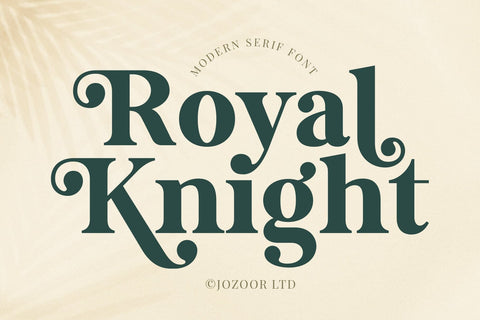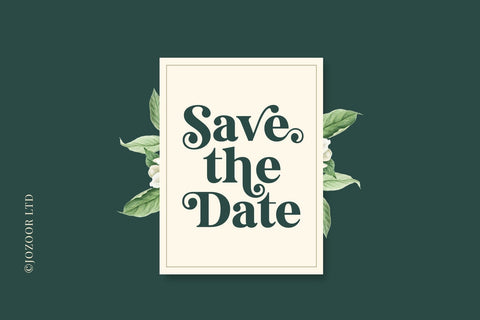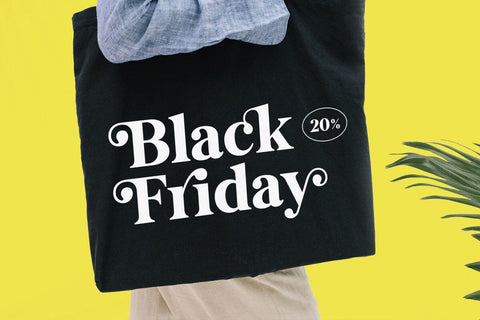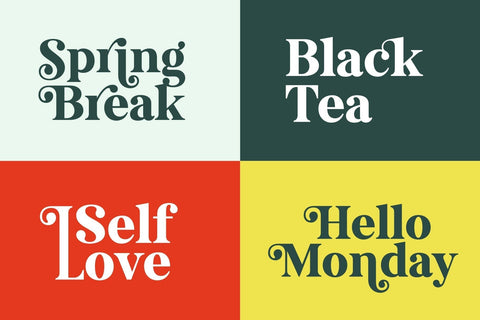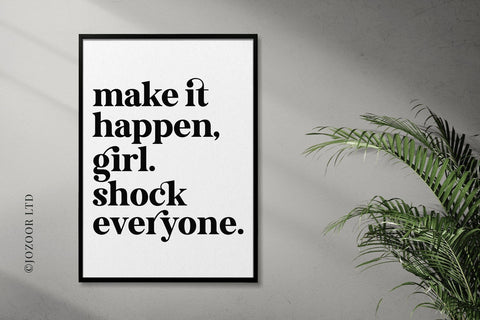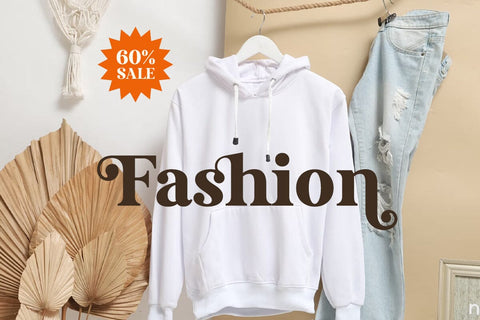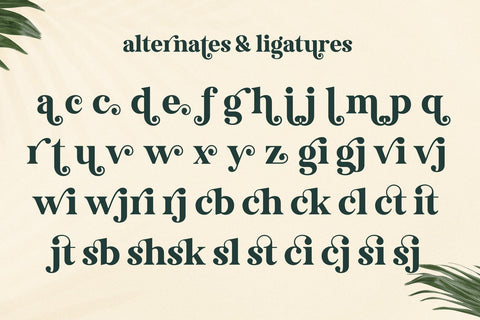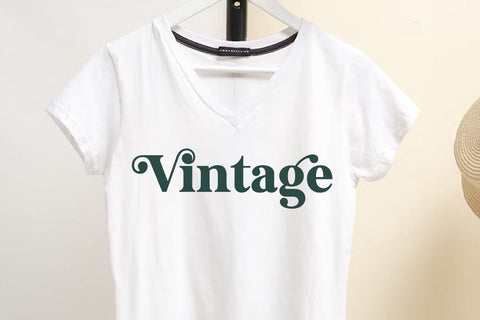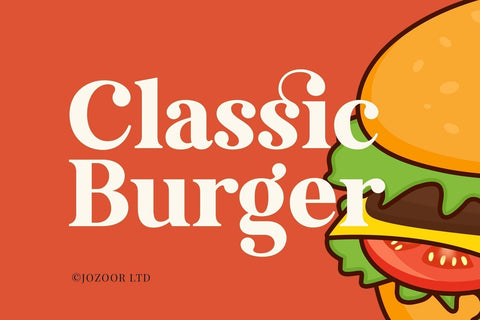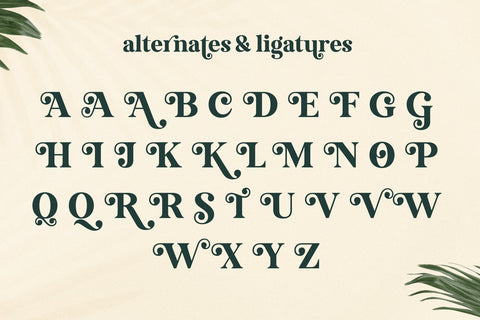
Royal Knight - Modern Serif Font
Royal Knight is a cool and stylish modern serif font featuring its own unique style and modern look. This typeface is perfect for an elegant & luxury logo, book or movie title, fashion brand, magazine, clothes, lettering, quotes, etc.